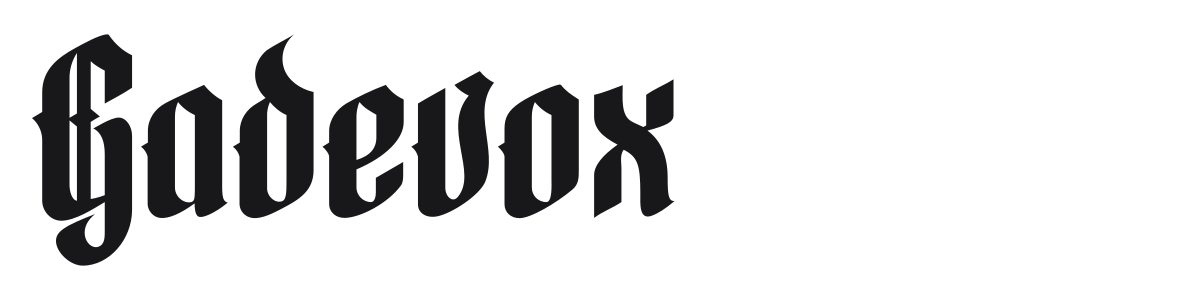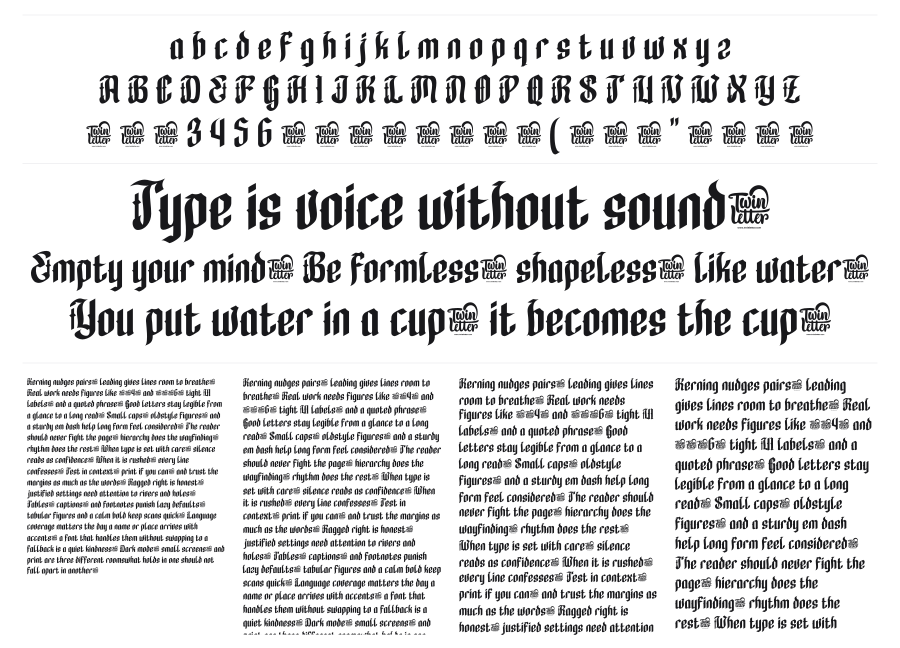
Gadevox
Gadevox is a bold Gothic blackletter with wide, heavy proportions and sharp angular detailing throughout. The strong stroke contrast and pointed diamond finials give it an aggressive medieval character that reads equally well in tattoo culture, metal music, and streetwear branding. It hits hard at large sizes.